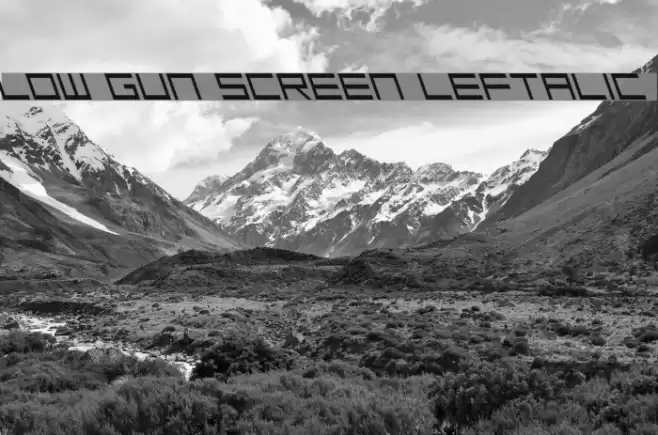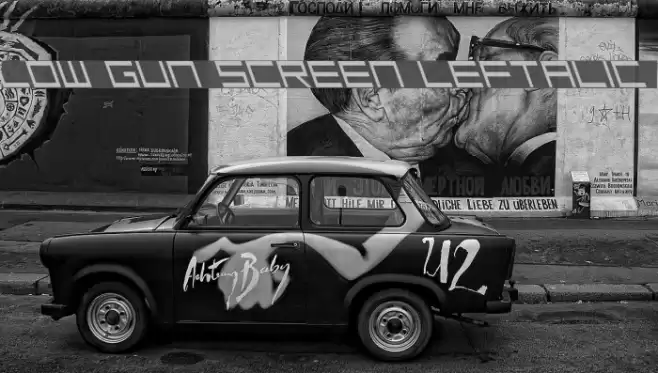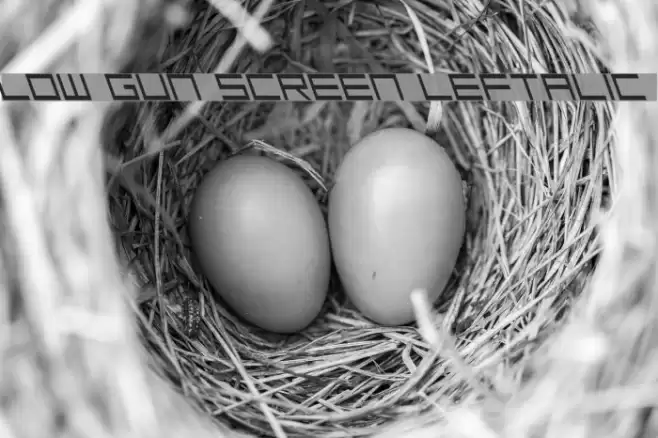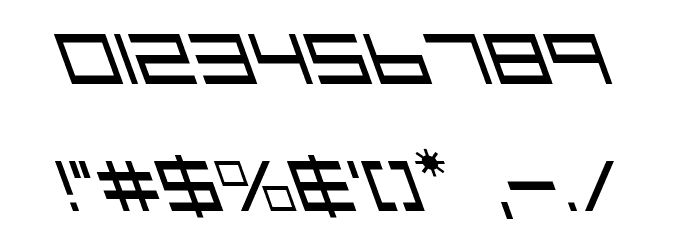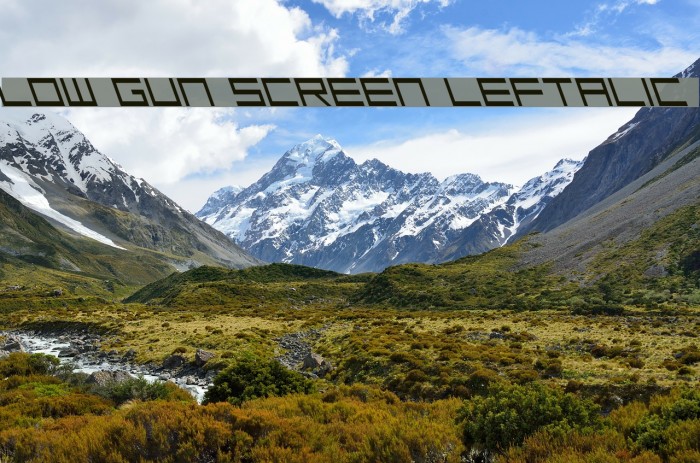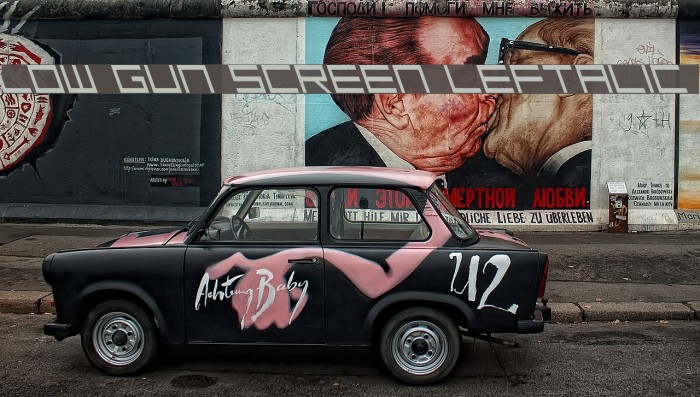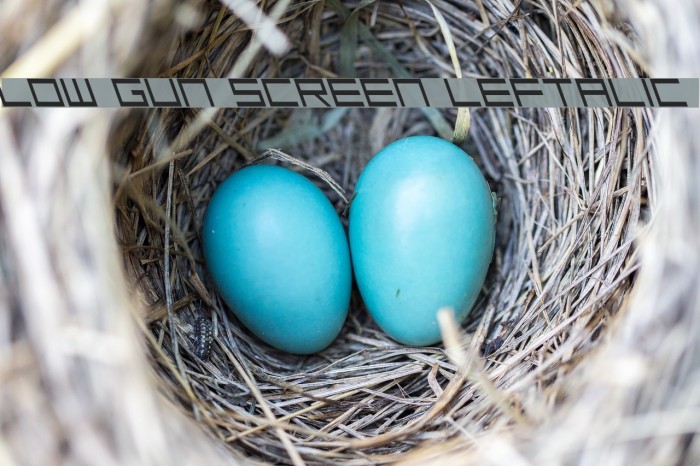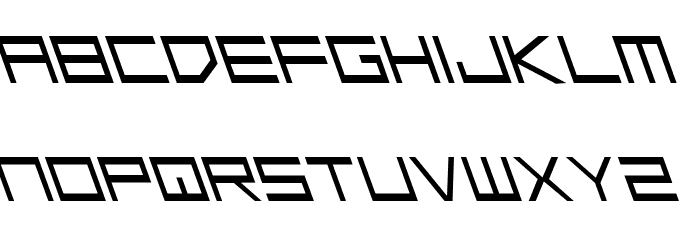
Low Gun Screen Leftalic Font
Low Gun Screen Leftalic Description
This font features a futuristic and angular design, characterized by its geometric and sharp-edged letterforms. The uppercase and lowercase letters maintain a consistent angular style, giving it a dynamic and modern appearance. The numbers and special characters follow the same design principles, ensuring uniformity across all glyphs. The font's unique style makes it stand out, with a slightly italicized slant that adds a sense of motion and speed. Its bold and striking appearance is ideal for projects that require a modern and edgy look.
A futuristic, angular font with a dynamic, italicized style from Uncategorized fonts.
- Proposed Projects: Ideal for sci-fi themed designs, video game graphics, tech branding, and modern posters.